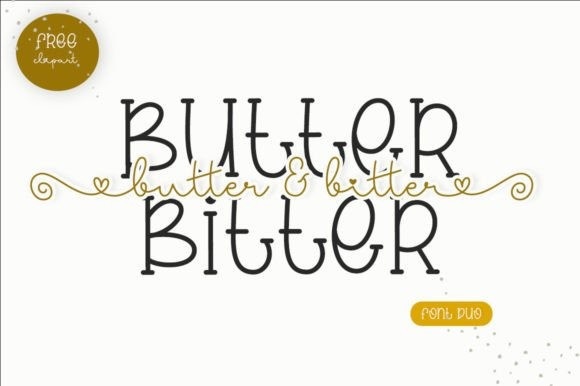
Butter Bitter Font Duo
Butter Bitter Font Duo, consisting of two handwritten fonts designed to complement each other perfectly. Together or separately, these fonts are ideal for adding elegance and playfulness to your handiwork. Butter Bitter is PUA encoded, meaning you have easy access to all the glyphs and dashes!